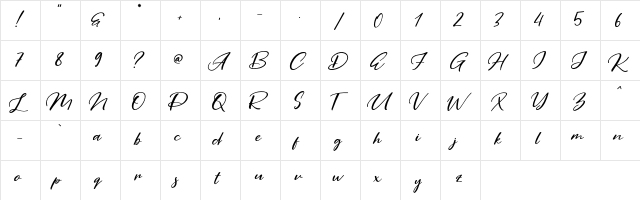
Purple Pen Regular
Regular · Suzuran Suzuran ·
Foundry Suzuran
FoundrySuzuran
DesignerSuzuran
Design Context for Purple Pen Typeface
Purple Pen is a composed and adaptable typeface that performs quietly and consistently across a wide range of design contexts.